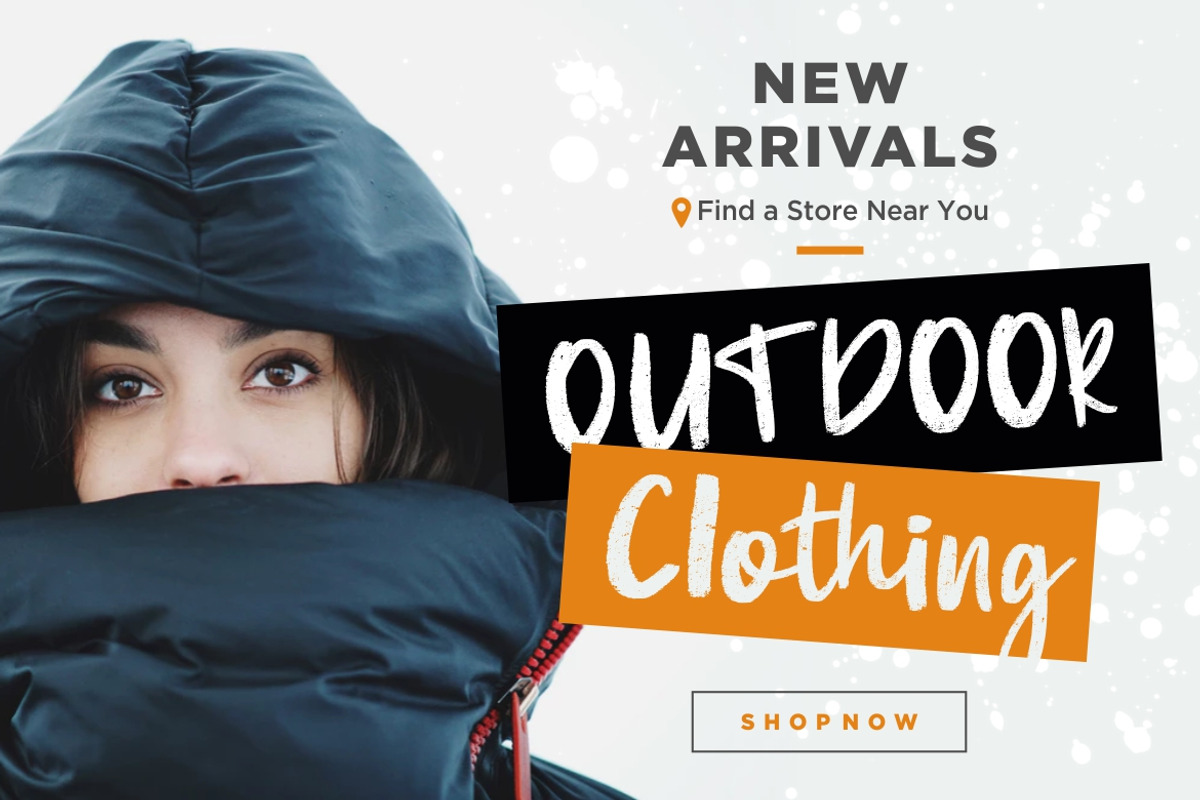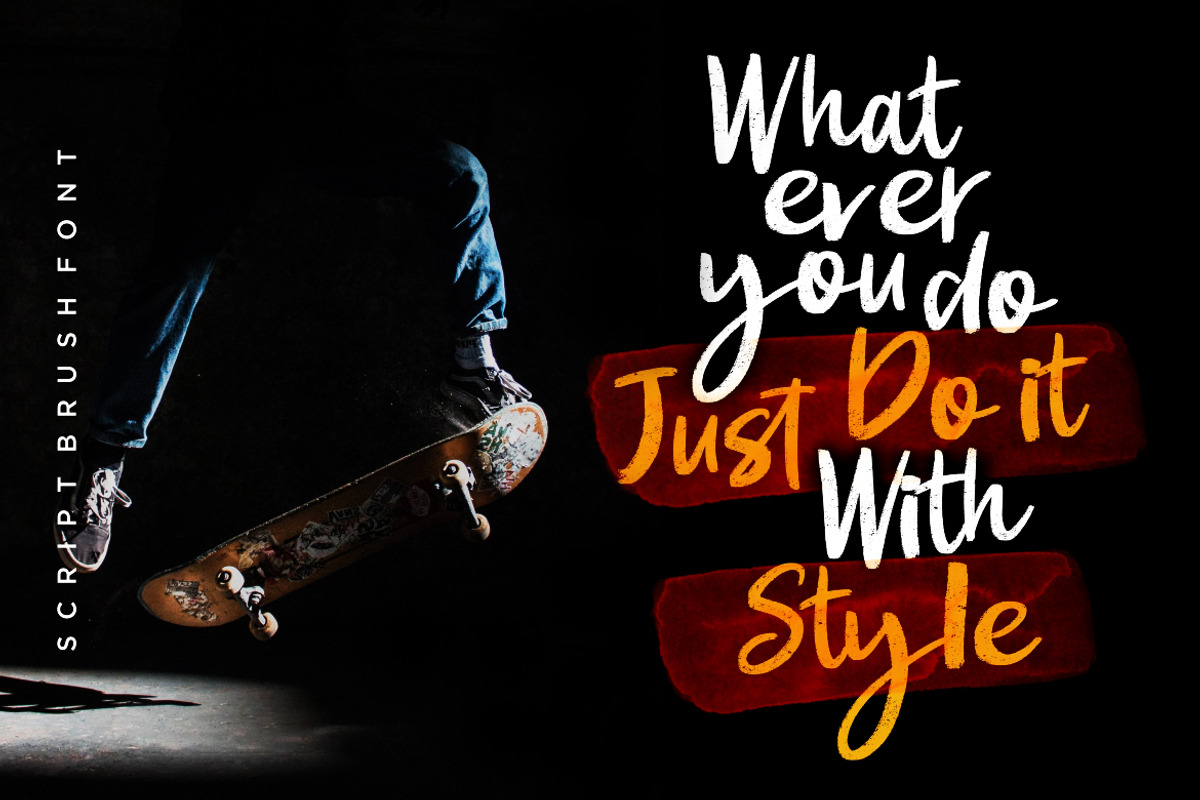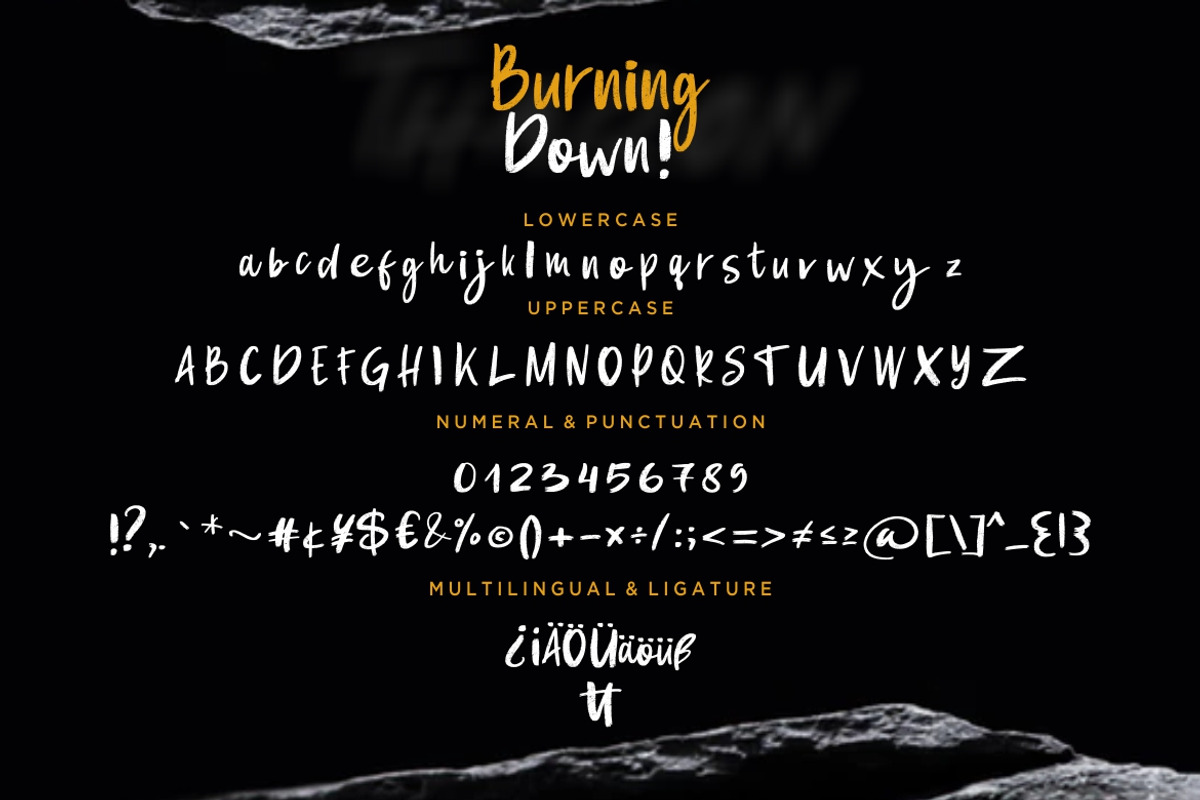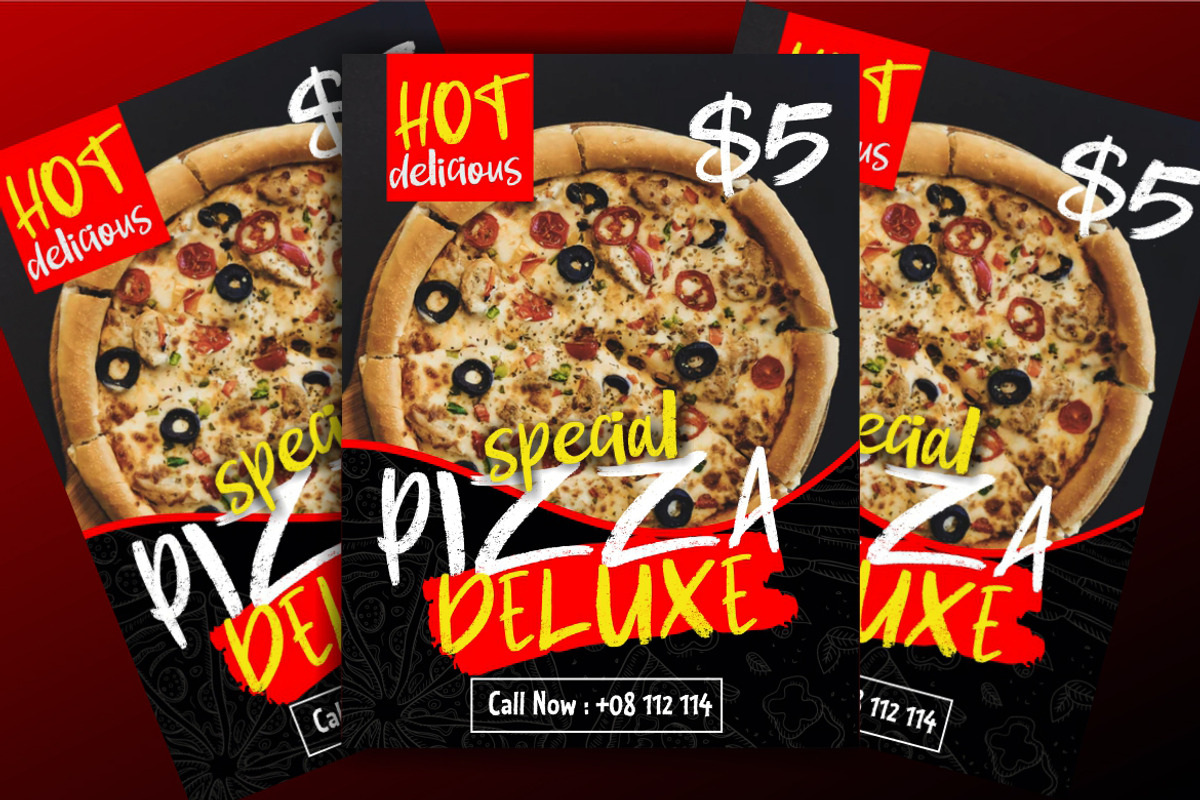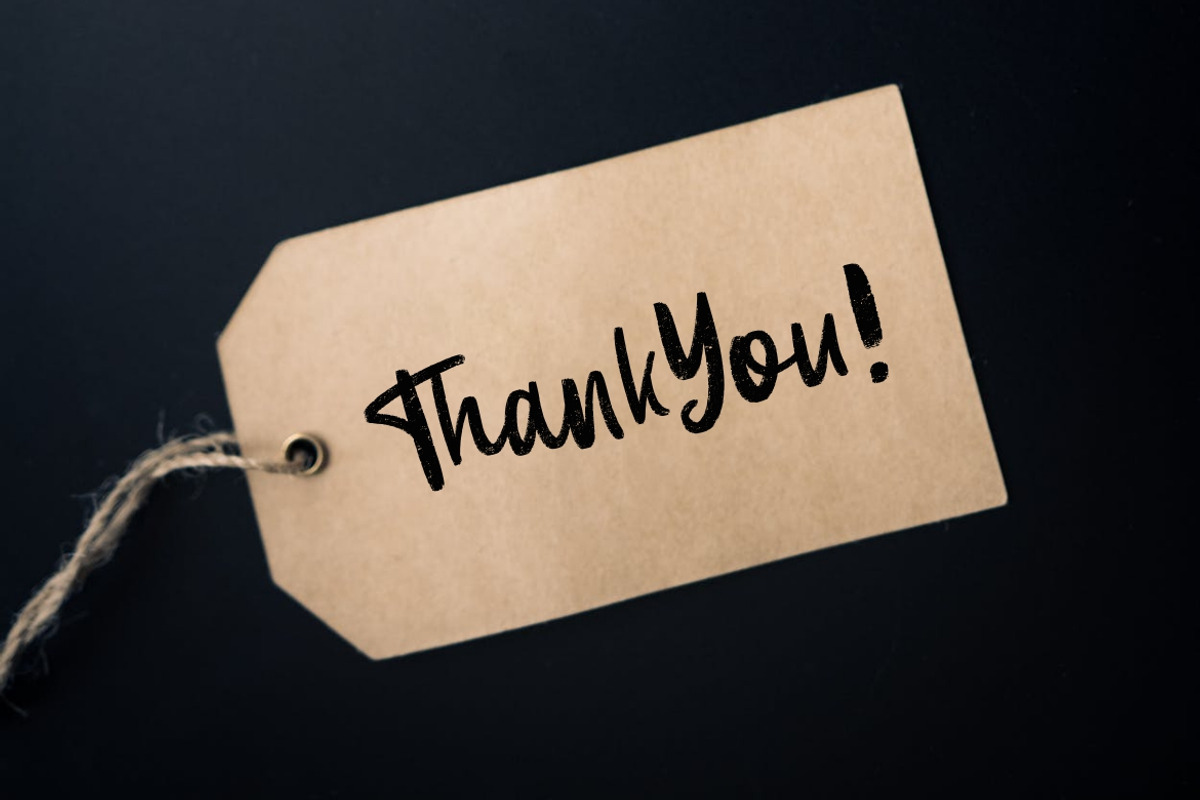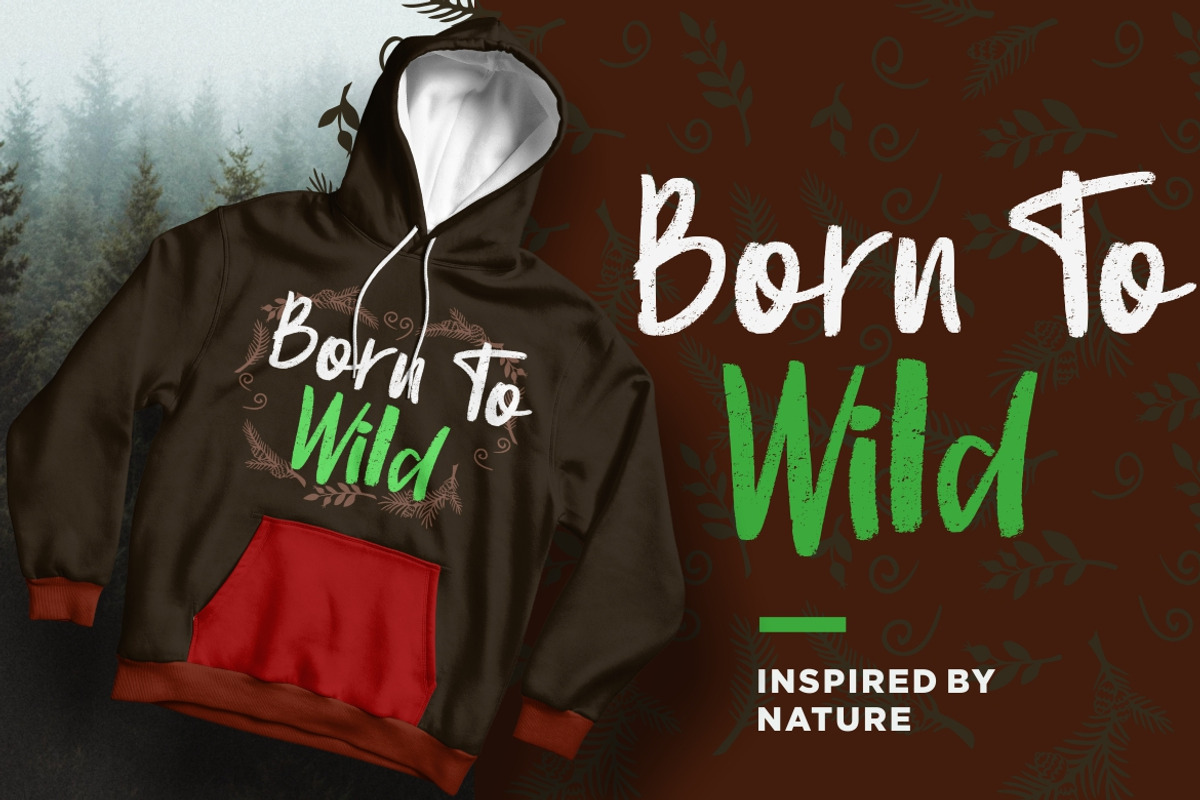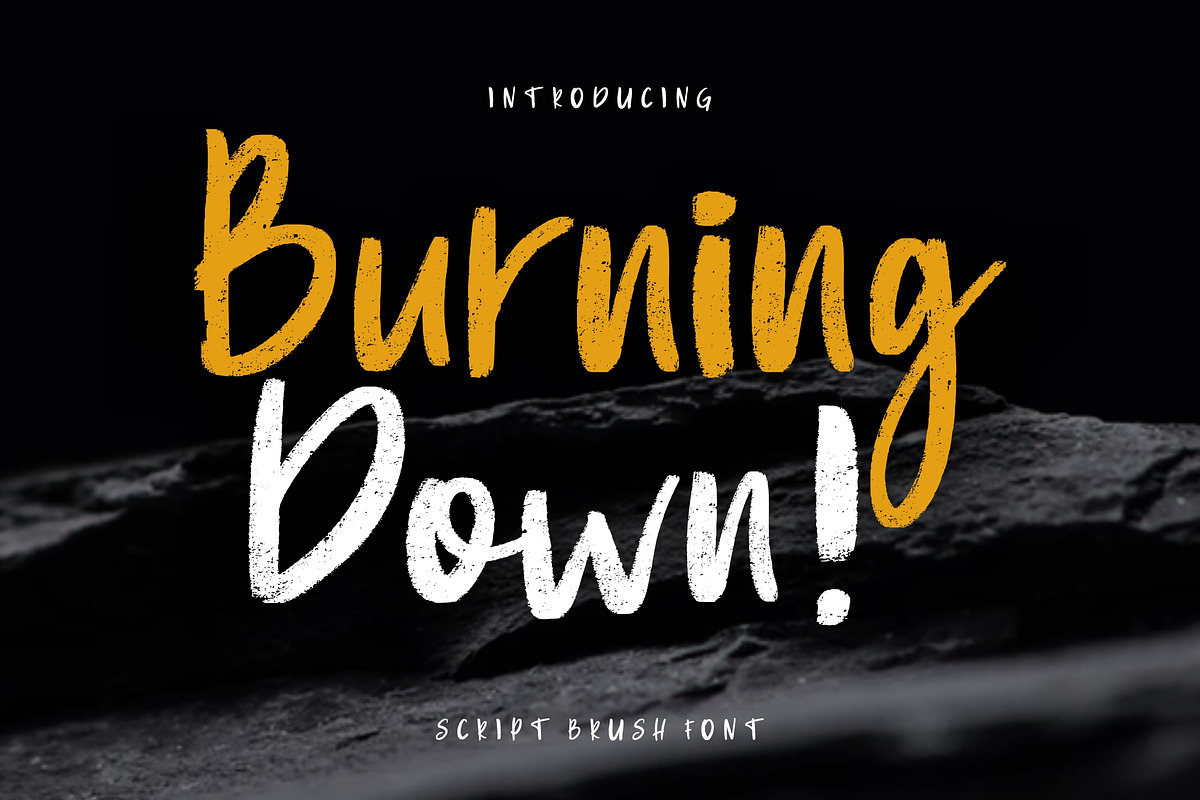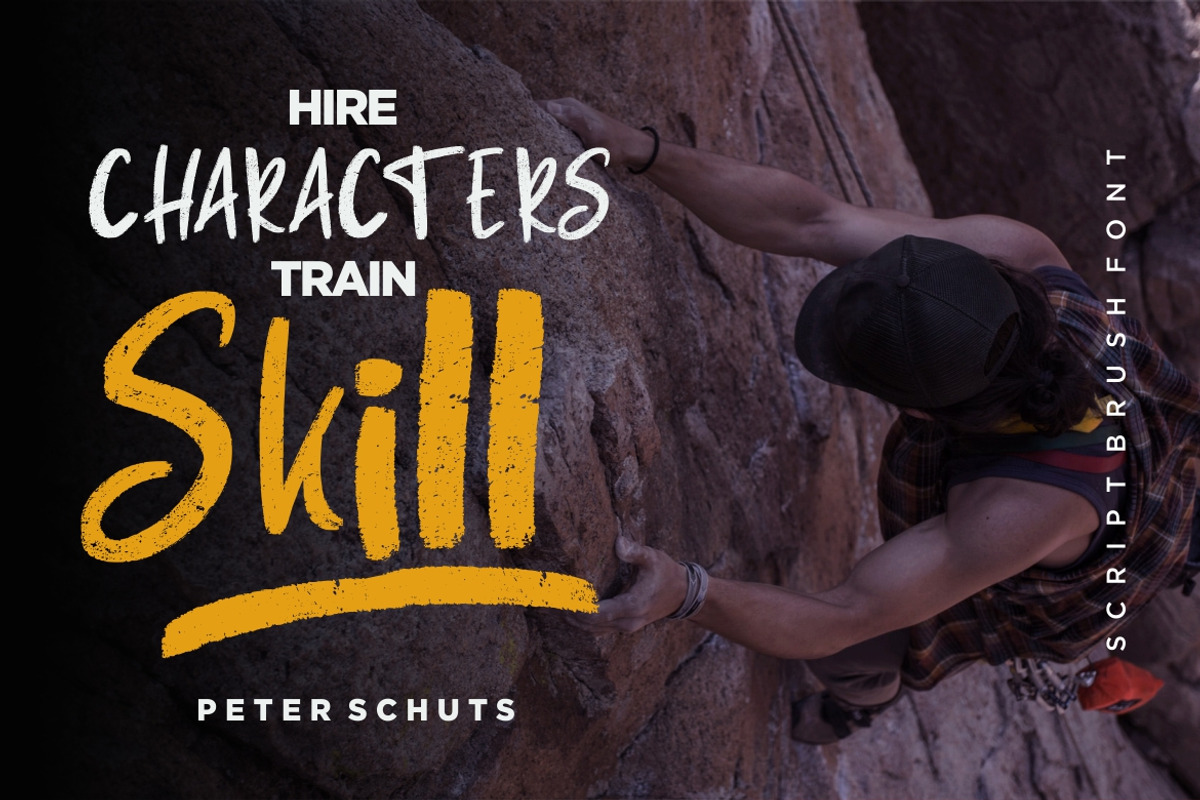
Burning Down Advertisement Font
Burning Down is brush hand-drawn font and strong bold looks.
Burning Down is perfect for branding projects, logo, wedding designs, social media posts, advertisements, product packaging, product designs, label, photography, watermark, invitation, stationery and any projects that need handwriting taste.
Burning Down Advertisement Font by Creatype Studio fits naturally into Branding, posters, packaging, typography.